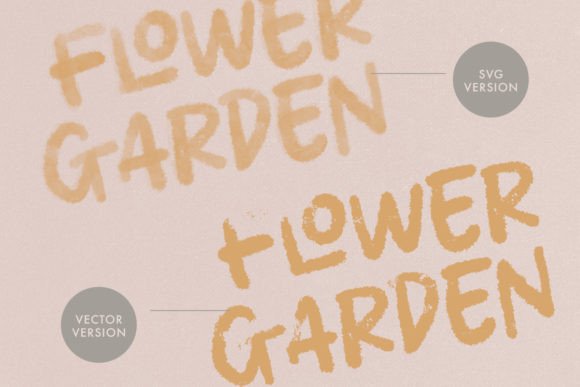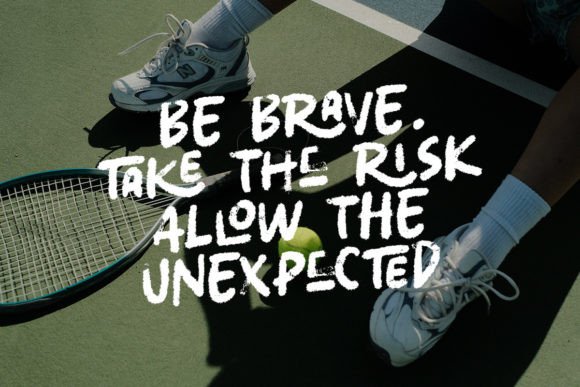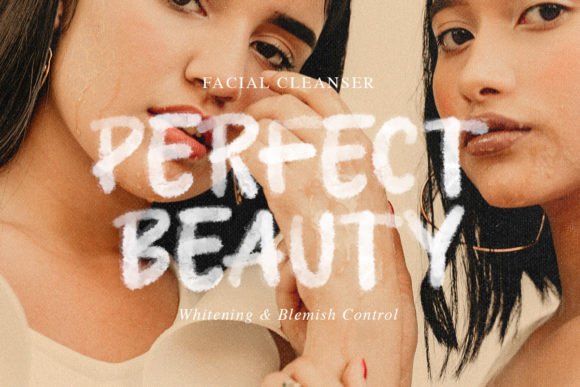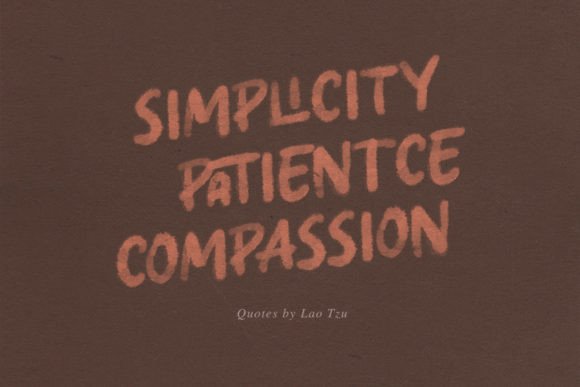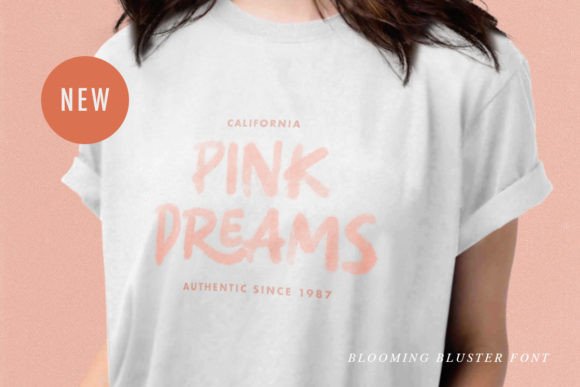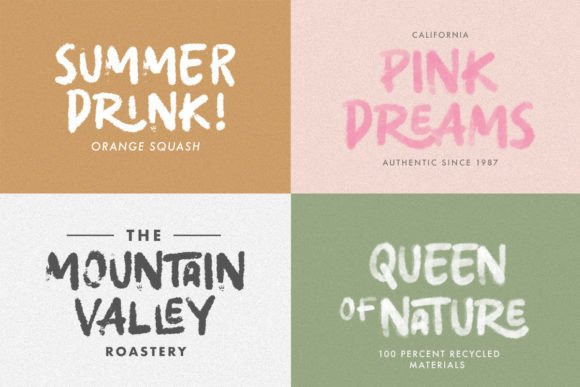
Blooming Bluster Font: Elevate Your Designs with a Textured Sans Serif Display Typeface
In the world of typography, a font can make or break a design. It’s the perfect blend of form and function, conveying a message while evoking an emotional response. For designers and crafters, finding the right font can be a daunting task. That’s where Blooming Bluster comes in – a textured sans serif display typeface that’s sure to become a staple in your font library.
What is Blooming Bluster?
Blooming Bluster is a unique and versatile font that’s perfect for a wide range of design projects. Its textured sans serif design gives it a distinctive look that’s both modern and edgy. The font’s display style makes it ideal for headlines, titles, and other attention-grabbing elements. Whether you’re working on a logo, brochure, or website, Blooming Bluster is sure to make a statement.
Key Features of Blooming Bluster
• Textured Sans Serif Design: Blooming Bluster’s textured design gives it a tactile feel that’s perfect for designs that need a bit of grit and texture.
• Display Style: The font’s display style makes it perfect for headlines, titles, and other attention-grabbing elements.
• Versatility: Blooming Bluster can be used for a wide range of design projects, from logos and brochures to websites and social media graphics.
• Easy to Read: Despite its textured design, Blooming Bluster is easy to read, even at smaller sizes.
Why Choose Blooming Bluster?
So why choose Blooming Bluster over other fonts? For starters, its unique textured design sets it apart from more traditional sans serif fonts. Additionally, its versatility makes it perfect for a wide range of design projects. Whether you’re working on a serious corporate design or a more playful creative project, Blooming Bluster is sure to fit the bill.
How to Use Blooming Bluster in Your Designs
Using Blooming Bluster in your designs is easy. Here are a few tips to get you started:
• Use it as a Headline Font: Blooming Bluster’s display style makes it perfect for headlines and titles.
• Pair it with a Serif Font: Pairing Blooming Bluster with a serif font can create a nice contrast and add visual interest to your design.
• Experiment with Colors: Blooming Bluster’s textured design looks great in a variety of colors. Experiment with different colors and gradients to find the perfect look for your design.
Who is Blooming Bluster for?
Blooming Bluster is perfect for designers and crafters who want to add a unique touch to their designs. Whether you’re a professional designer or a DIY enthusiast, Blooming Bluster is a great addition to your font library.
In conclusion, Blooming Bluster is a versatile and unique textured sans serif display typeface that’s perfect for a wide range of design projects. Its distinctive look and ease of use make it a great asset to any font library. Whether you’re working on a logo, brochure, or website, Blooming Bluster is sure to elevate your designs and help you stand out from the crowd.